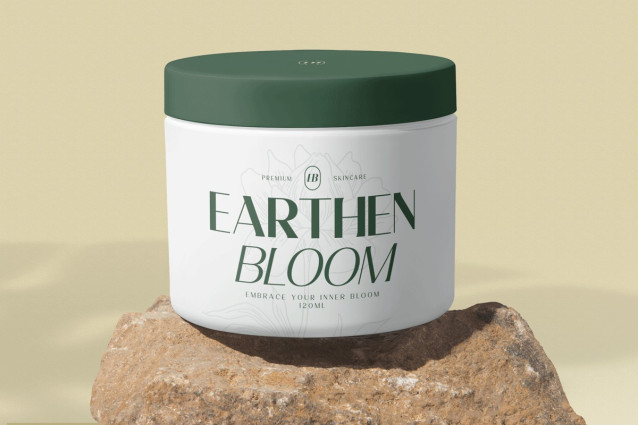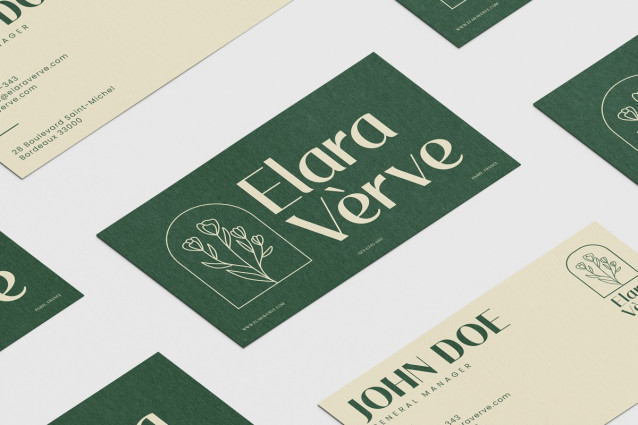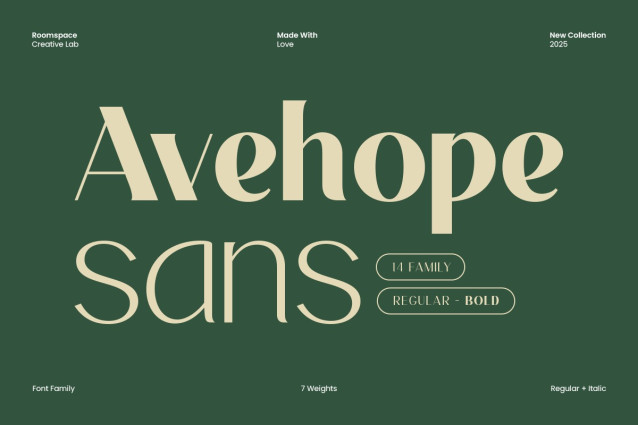
Avehope Font
Avehope Font is a geometric sans-serif font family that combines clean shapes with modern sophistication. With 14 fonts in total, this typeface is built to bring elegance and precision to every layout. From corporate identities to minimalist websites, Avehope Sans adapts beautifully to modern design trends while keeping your visuals professional and timeless.